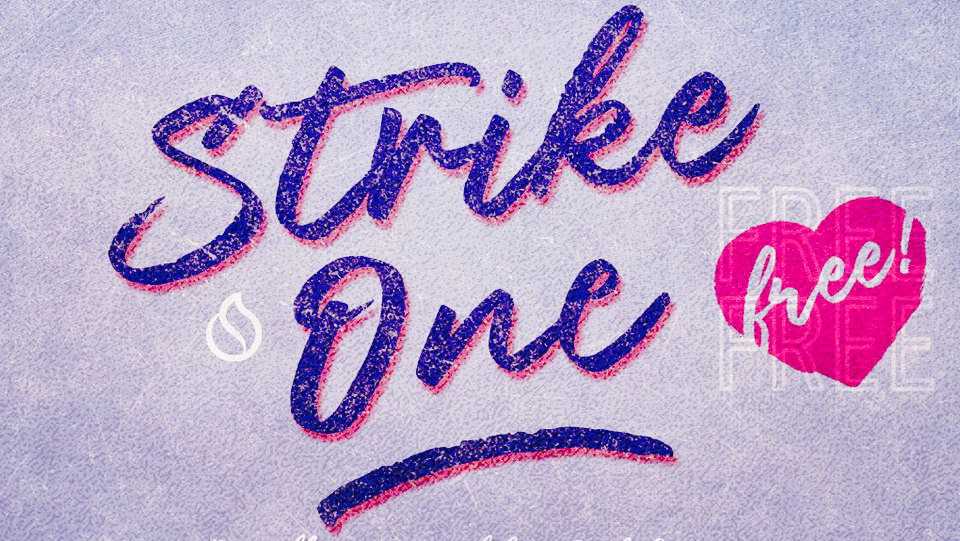
Download Strike One font, a lovely script with natural handwriting style. It is perfect for a wedding decoration, letters and cards, labels and branding, social media, printed quotes and much more.
Designer: Jroh Creative